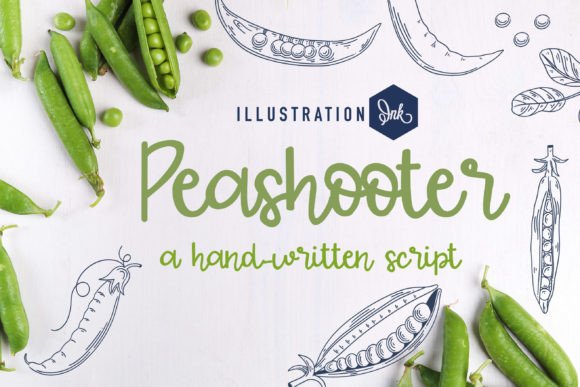
Introducing Peashooter Font, the epitome of elegance and contemporary style! Created by Illustration Ink, this attractive and modern handwritten font is guaranteed to leave a lasting impression.
With its flowing lines and personalized touches, Peashooter Font exudes a sense of warmth and approachability. Each letter is crafted with utmost care, capturing the essence of human handwriting. Whether you're designing a wedding invitation, a logo, or simply adding a touch of finesse to your website, this font will elevate your project to new heights.
What sets Peashooter Font apart is its perfect blend of elegance and modernity. It strikes the ideal balance between classic beauty and contemporary design, making it suitable for a wide range of applications. Whether you're aiming for a vintage-inspired look or a sleek and sophisticated aesthetic, this font adapts effortlessly to your needs.
Peashooter Font's clean and minimalist design adds a touch of sophistication to any project. Its simplicity allows the font to shine without overpowering the overall design. The clarity and readability of each character ensure that your message is conveyed effortlessly, capturing the attention of your audience.
Imagine the impact of Peashooter Font on your brand identity. With its captivating and eye-catching appeal, it will effortlessly draw attention to your logo, packaging, or promotional materials. Stand out from the crowd and leave a lasting impression on your customers with this font that embodies both elegance and contemporary style.
Furthermore, Peashooter Font is the best font for Latin script. Its versatility allows it to beautifully display any Latin-based language, bringing your words to life with its unique flair. Whether you're designing a quote, a poster, or a social media graphic, this font will add an extra layer of charm and personality.